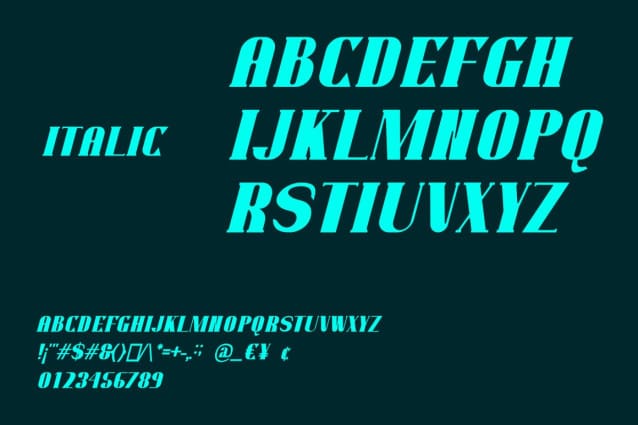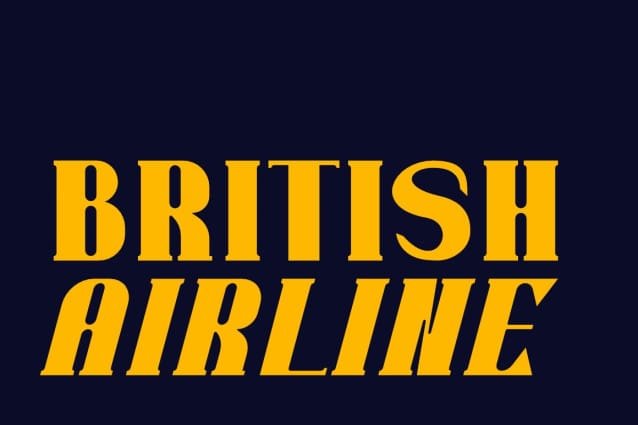
Warriot Italic Font
Warriot Italic Font is a classy serif font that brings elegance to your text. With its sleek lines and sophisticated curves, it adds a touch of refinement to any project. Perfect for fashion magazines, stylish invitations, or upscale branding, it exudes confidence and sophistication. Whether you’re aiming for a timeless look or a modern edge, this font is sure to elevate your design with its understated elegance.
– Limited Character Set:
This font has a limited character set, which may not cover all languages or special symbols.